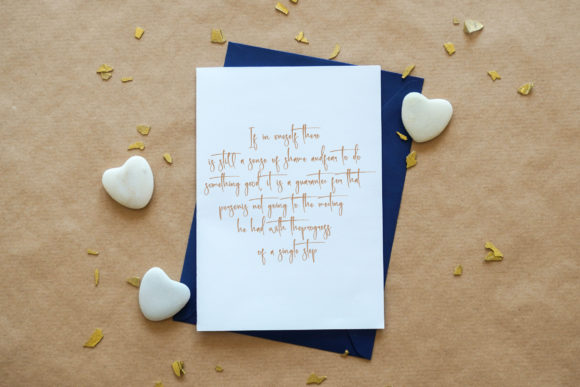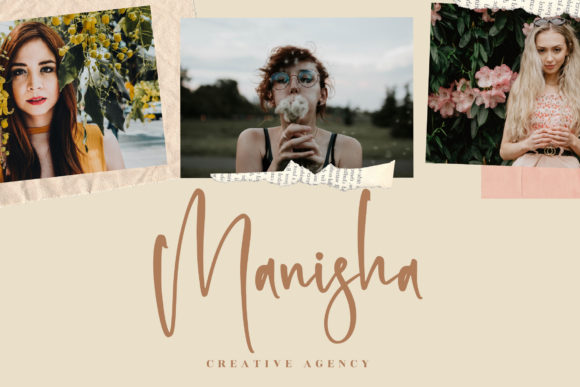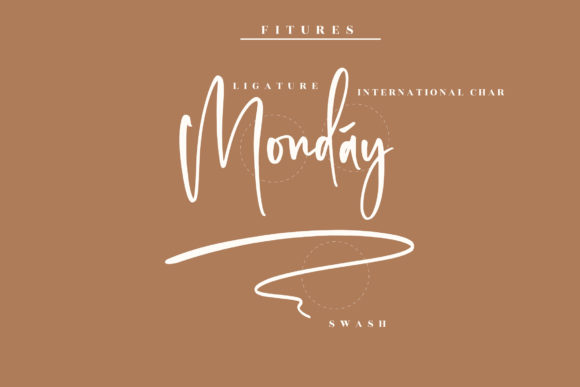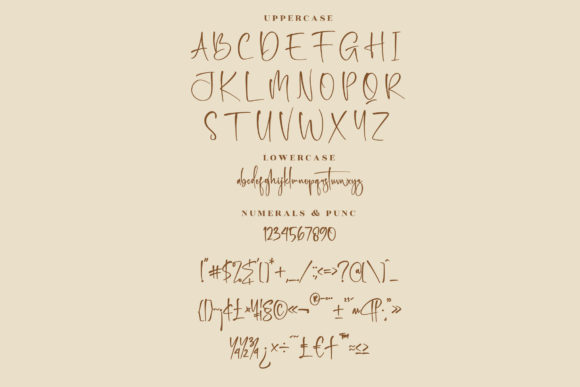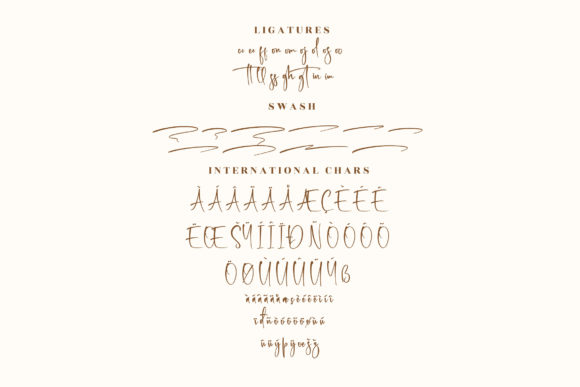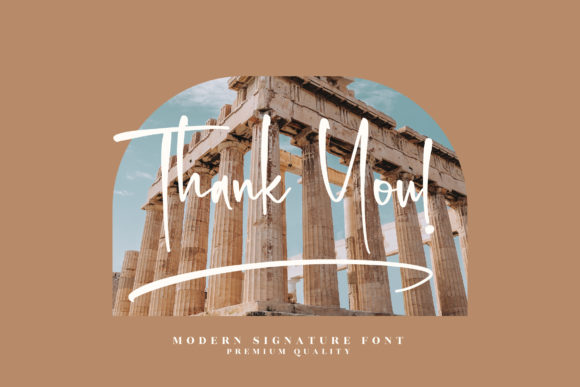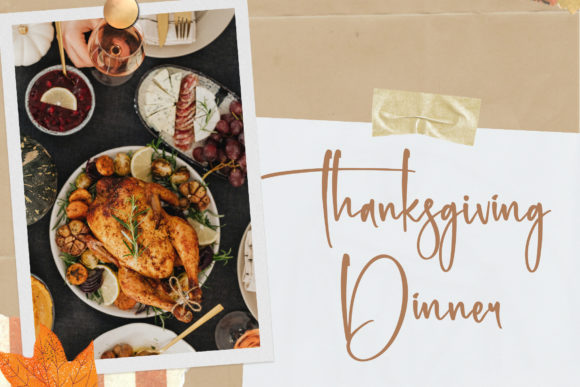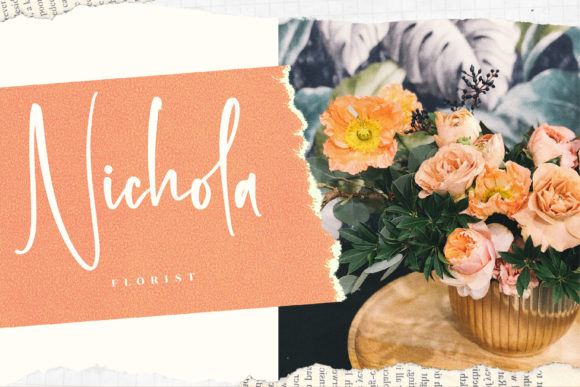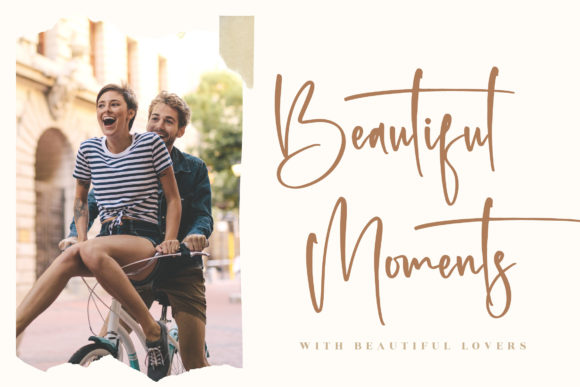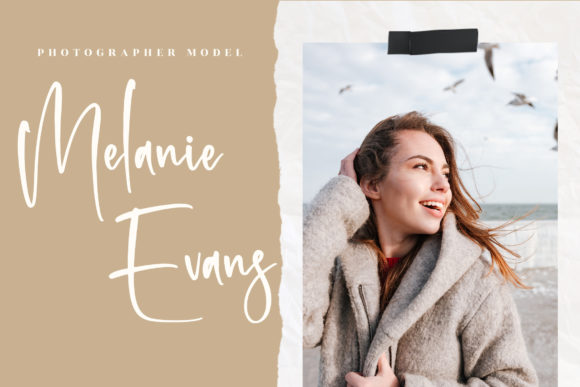
Amsterdam Bright Font
About Amsterdam Bright Font
Amsterdam Bright is a delicate and timeless handwritten font. It is the best choice for creating eye catching logos, branding and quotes. This font is PUA encoded which means you can access all of the glyphs and swashes with ease!